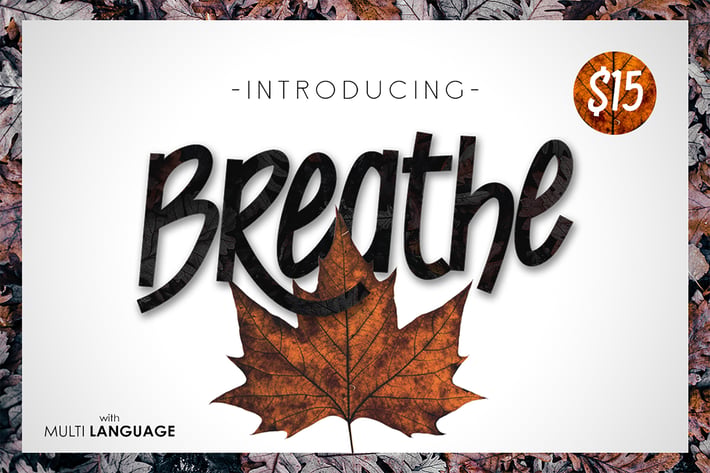
Breathe Typeface
BREATHE TYPEFACE Good font for Poster, movie tittle, book cover, and anymore.
uppercase & lowercase
number & punctuation
ligatures
multi language
stylistic alternate